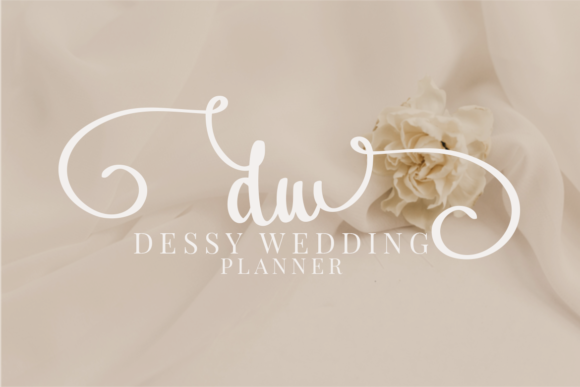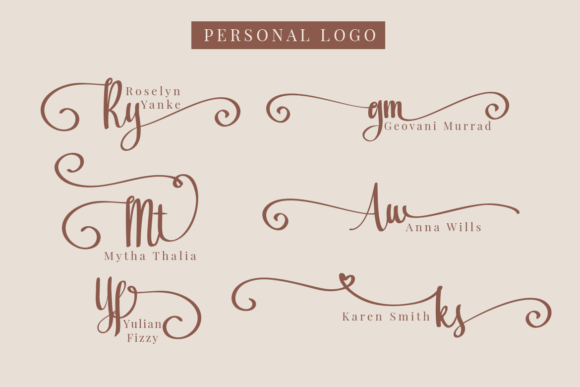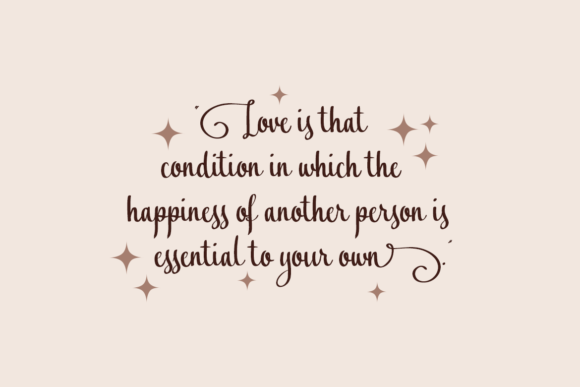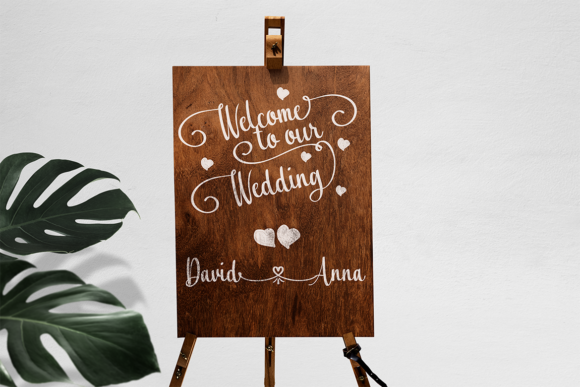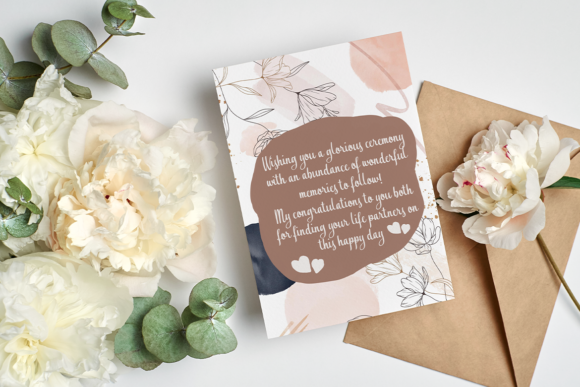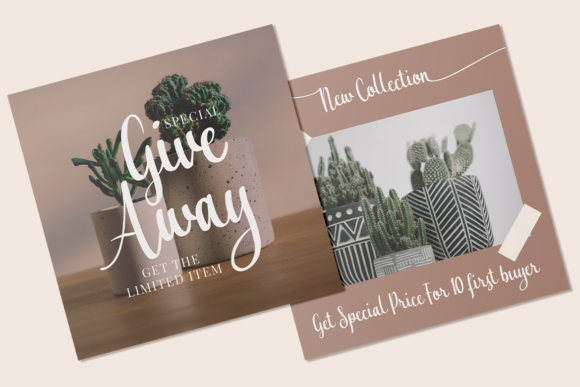
Discover the Charm of Agnes Michael Font: Elevate Your Designs with this Versatile Script Font
Are you a designer or crafter looking for a font that can add a touch of elegance and whimsy to your projects? Look no further than the Agnes Michael font. This enchanting handwritten font is perfect for a wide range of applications, from greeting cards to headlines, and is sure to become a staple in your design toolkit.
The Versatility of Agnes Michael Font
Agnes Michael font is a versatile script font that can be used in a variety of creative projects. Its flowing, cursive lines and charming letterforms make it perfect for:
- Greeting cards: Add a personal touch to your cards with Agnes Michael’s elegant script.
- Headlines: Make your headlines stand out with this beautiful, eye-catching font.
- Invitations: Create stunning invitations for weddings, parties, and other special events.
- Branding: Use Agnes Michael font to add a touch of sophistication to your brand’s identity.
- Digital art: Incorporate this font into your digital art projects, such as illustrations, graphics, and more.
What Makes Agnes Michael Font Special?
Agnes Michael font has several features that make it a standout choice for designers and crafters:
- PUA Encoded: Agnes Michael font is PUA (Private Use Area) encoded, which means you can access all glyphs and swashes with ease. This makes it easy to use and customize the font to suit your needs.
- Handwritten Charm: The font’s handwritten nature gives it a unique, personal touch that’s perfect for adding character to your designs.
- Wide Range of Applications: As mentioned earlier, Agnes Michael font can be used in a wide range of projects, from greeting cards to headlines.
Tips for Using Agnes Michael Font
Here are some tips for getting the most out of Agnes Michael font:
- Experiment with Different Sizes: Agnes Michael font looks great in a variety of sizes, from small and delicate to large and bold.
- Mix and Match: Combine Agnes Michael font with other fonts to create interesting and unique typography.
- Use Swashes and Glyphs: Take advantage of the font’s PUA encoding to access a wide range of swashes and glyphs.
Why Designers and Crafters Love Agnes Michael Font
Agnes Michael font has become a favorite among designers and crafters for several reasons:
- Ease of Use: The font’s PUA encoding makes it easy to use and customize.
- High-Quality Design: Agnes Michael font is designed with high-quality, flowing lines and charming letterforms.
- Versatility: The font can be used in a wide range of projects, making it a great addition to any design toolkit.
Agnes Michael font is a versatile and enchanting handwritten font that’s perfect for designers and crafters looking to add a touch of elegance and whimsy to their projects. With its PUA encoding, wide range of applications, and high-quality design, it’s no wonder that Agnes Michael font has become a favorite among creative professionals. Whether you’re creating greeting cards, headlines, or digital art, Agnes Michael font is sure to become a staple in your design toolkit.